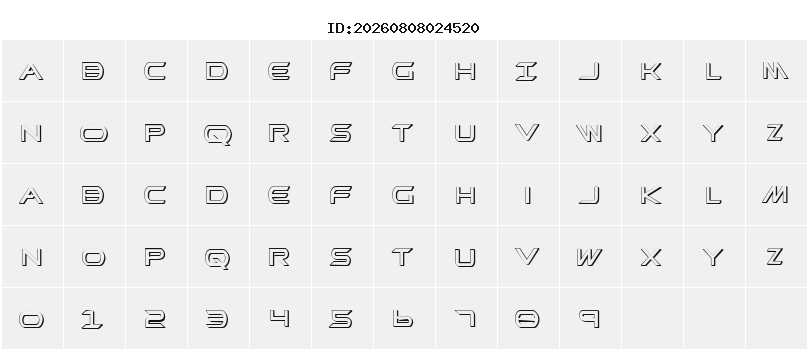
Promethean Shadow Preview
• Font Name: Promethean Shadow
• Full Font Name: Promethean Shadow
About Promethean Shadow.ttf
Promethean Shadow.ttf is a modern, elegant sans-serif font designed for ultimate readability and visual harmony. Perfect for branding, headlines, web design, and print materials.